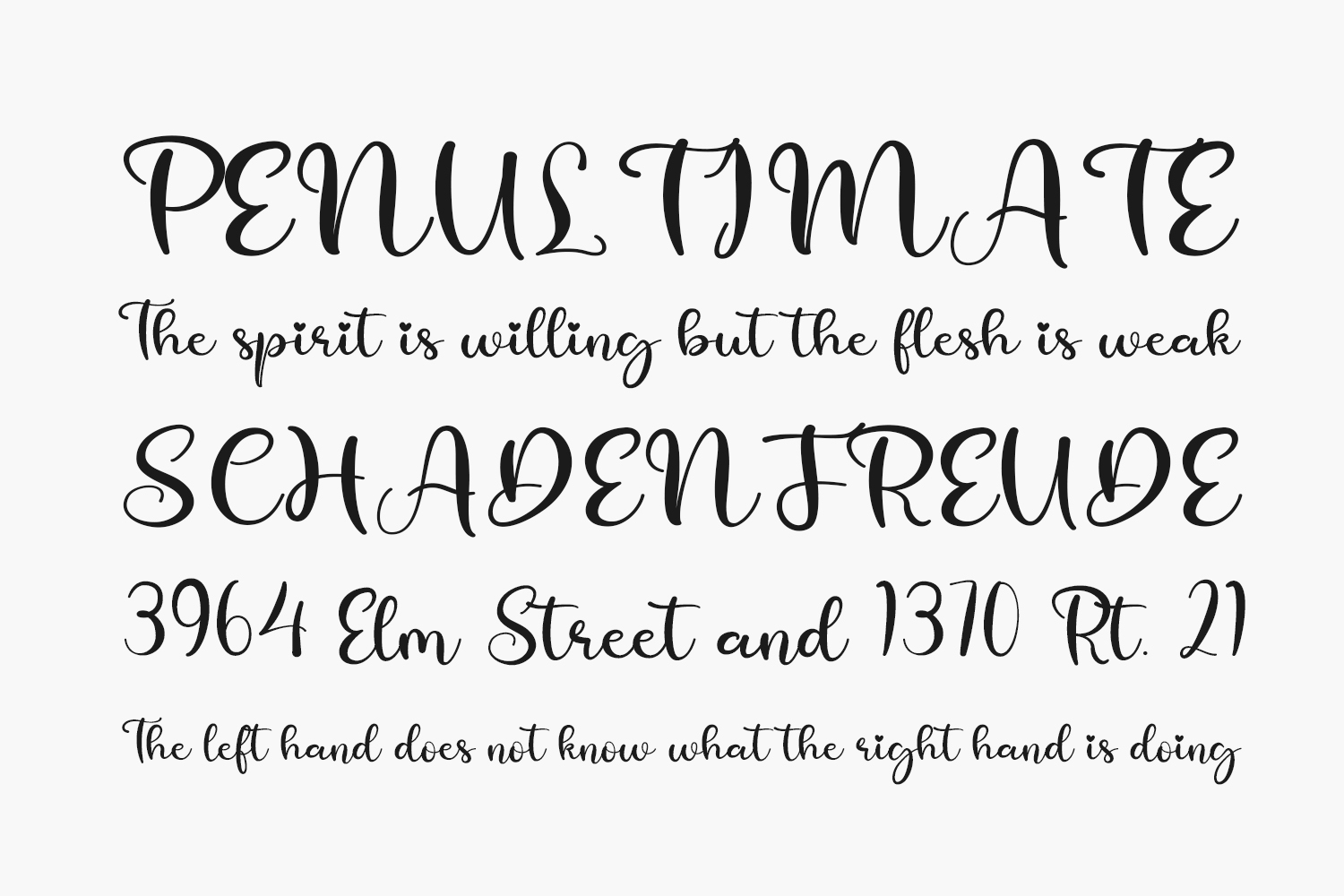
Madaline Free Font is a beautiful and refined script font. It has a classy, elegant and modern look that can be used for logos, branding, invitations, stationery, wedding designs, social media posts, and much more. Madaline Free Font was designed by Letter Art Studio and is free for personal or commercial use.
Designed by Letter Art Studio